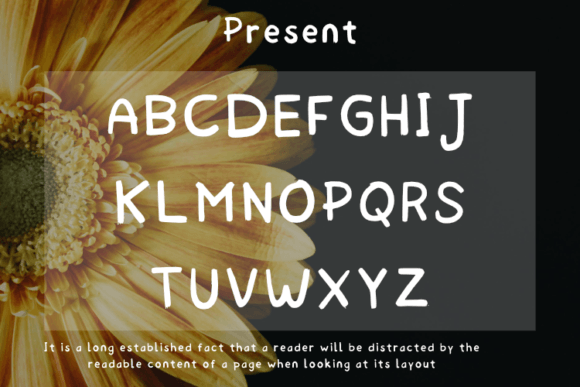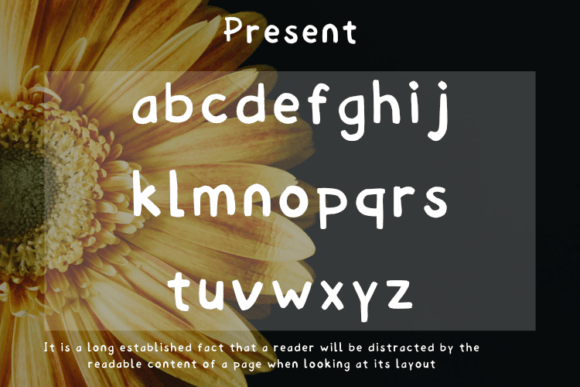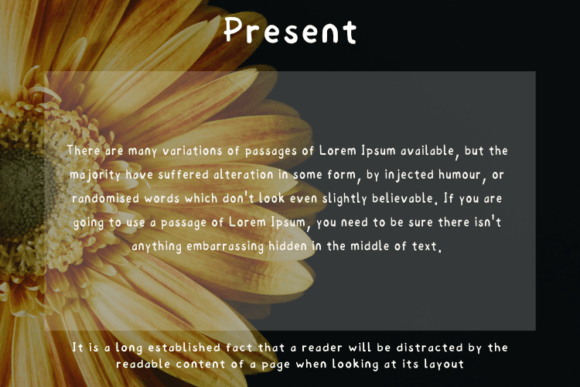
Bella Font: Elevate Your Designs with Elegance and Luxury
In the world of typography, a font can make or break a design. For designers and crafters seeking to add a touch of sophistication and modernity to their work, Bella Font is an exceptional choice. This sans serif typeface boasts a unique style and contemporary look, making it perfect for a wide range of applications, from elegant logos and title designs to fashion brands and magazine layouts.
The Characteristics of Bella Font
Bella Font is a sans serif typeface, which means it doesn’t have the small lines or flourishes at the ends of the letters, giving it a clean and streamlined appearance. Its unique style and modern look make it stand out from more traditional fonts. The font’s sleek lines and curves create a sense of luxury and sophistication, making it ideal for designs that require a high-end feel.
Perfect for Elegant and Luxurious Logos
When it comes to creating a logo, the font choice is crucial. Bella Font is perfect for elegant and luxurious logos, as it exudes sophistication and refinement. Its modern look and feel make it an excellent choice for brands that want to convey a sense of high-end quality and style. Whether you’re designing a logo for a fashion brand, a luxury goods company, or a high-end service provider, Bella Font is an excellent choice.
Ideal for Book and Movie Title Designs
Bella Font is also well-suited for book and movie title designs. Its unique style and modern look make it perfect for creating eye-catching and memorable titles. The font’s clean lines and curves create a sense of drama and sophistication, making it ideal for titles that require a touch of elegance and refinement.
Fashion Brands and Magazines
Fashion brands and magazines require fonts that are stylish, modern, and sophisticated. Bella Font fits the bill perfectly. Its sleek lines and curves create a sense of luxury and refinement, making it perfect for designs that require a high-end feel. Whether you’re designing a logo, a magazine layout, or a fashion brand’s marketing materials, Bella Font is an excellent choice.
Versatility of Bella Font
One of the best things about Bella Font is its versatility. It’s not just limited to logos, title designs, and fashion brands. This font can be used for a wide range of applications, including:
- Clothing and apparel designs
- Quote designs and posters
- Magazine and newspaper layouts
- Book covers and title designs
- Movie and video titles
- Branding and marketing materials
Why Choose Bella Font?
There are many fonts available, but Bella Font stands out from the rest. Here are just a few reasons why:
- Unique style: Bella Font has a unique style that sets it apart from more traditional fonts.
- Modern look: The font’s modern look and feel make it perfect for designs that require a touch of sophistication and elegance.
- Versatility: Bella Font can be used for a wide range of applications, making it a great addition to any designer’s toolkit.
- Elegance and luxury: The font’s sleek lines and curves create a sense of luxury and refinement, making it perfect for designs that require a high-end feel.
In conclusion, Bella Font is an exceptional choice for designers and crafters seeking to add a touch of elegance and luxury to their work. Its unique style, modern look, and versatility make it perfect for a wide range of applications, from elegant logos and title designs to fashion brands and magazine layouts. Whether you’re a professional designer or a crafty DIY enthusiast, Bella Font is a great addition to your toolkit.